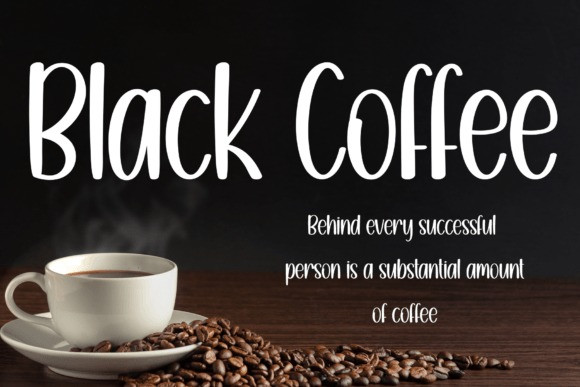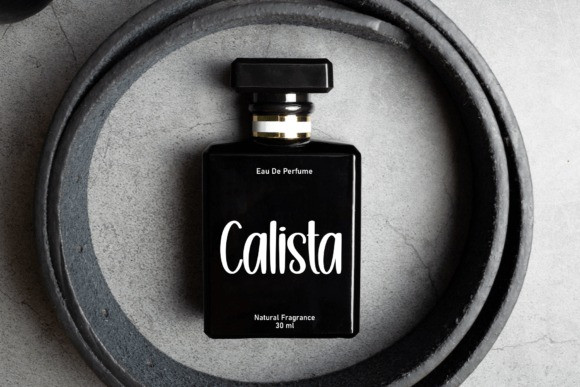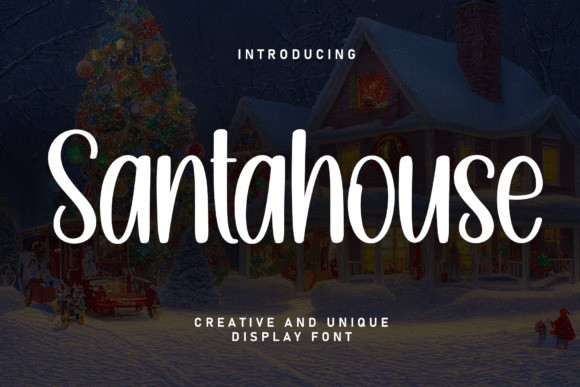
Santahouse Font
Santahouse Font is an enchanting handwritten font. This versatile font has a wide spectrum of applications ranging from greeting cards to headlines and is guaranteed to add a friendly feel to your next project.